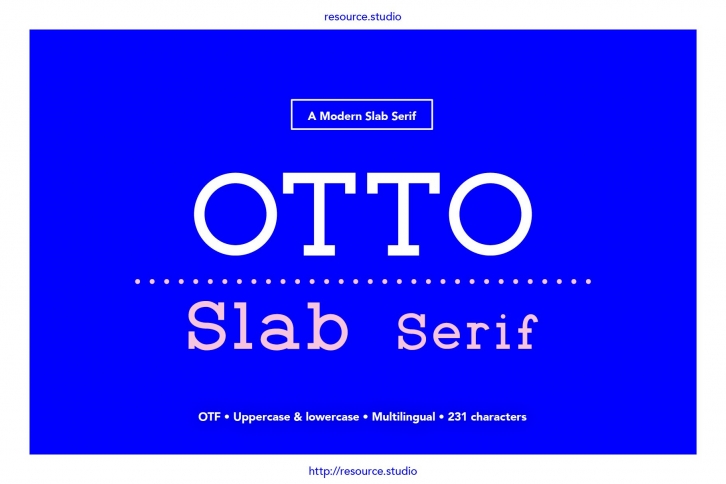
OTTO - Slab Serif
OTTO is a modern slab serif font that's perfect for branding and Identity work, and just as at home in an editorial.
Simple and measured, use it to bring personality to your latest branding and identity project, or even the grid of your latest layout.